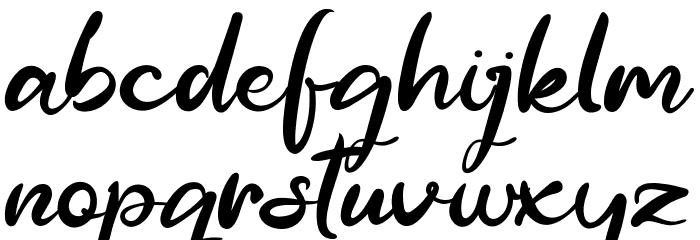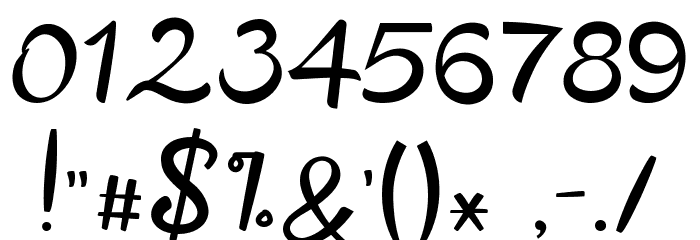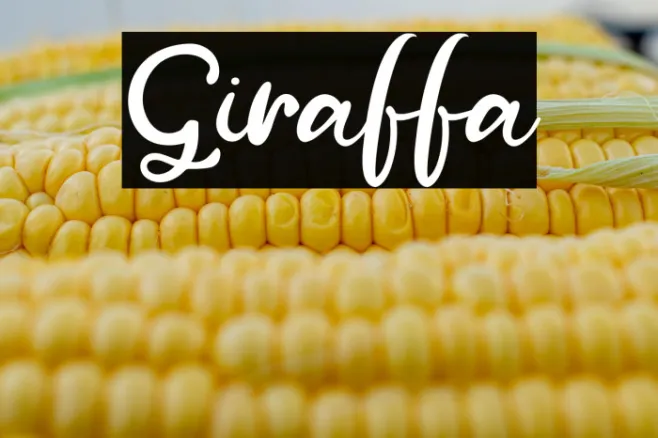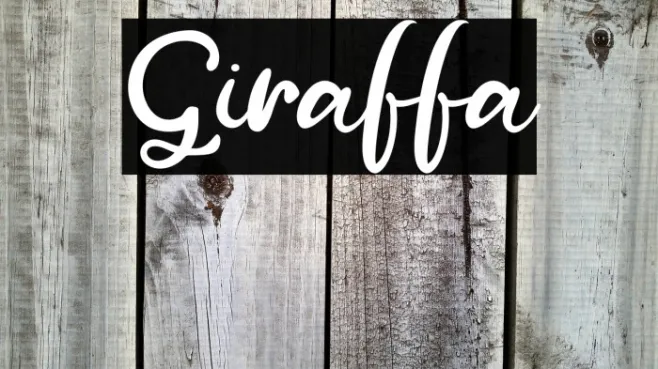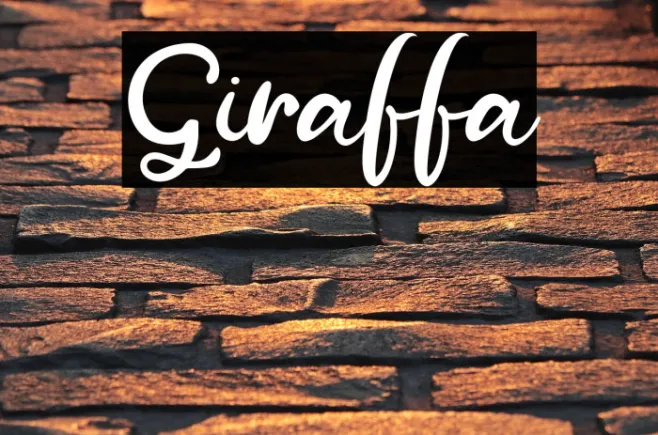
Giraffa Font
This font exhibits a lively and dynamic script style, characterized by its flowing, cursive letterforms. The uppercase letters are bold and expressive, with elegant loops and swashes that add a sense of movement and flair. The lowercase letters maintain a consistent rhythm, with smooth connections between each character, enhancing readability while preserving the font's artistic nature. The numerals are well-integrated, matching the overall style with their rounded and slightly italicized appearance. Special characters are thoughtfully designed, complementing the alphabet with their cohesive and stylish look. This font's playful yet sophisticated design makes it suitable for a variety of creative applications.
A lively and dynamic script font with flowing, cursive letterforms and elegant swashes.
- Proposed Projects: Ideal for wedding invitations, greeting cards, branding projects, and artistic posters.
- Use Case: Logos, Headlines, Invitations